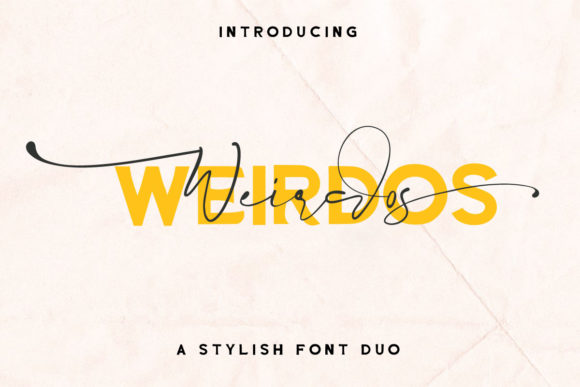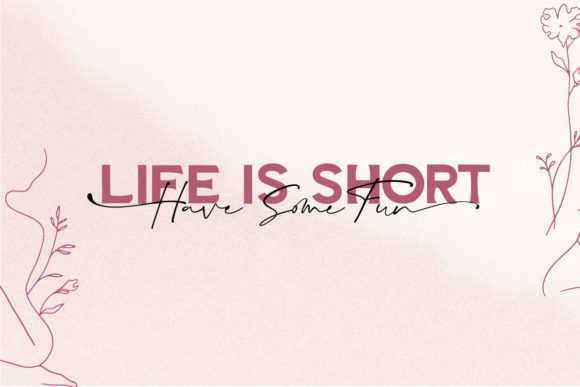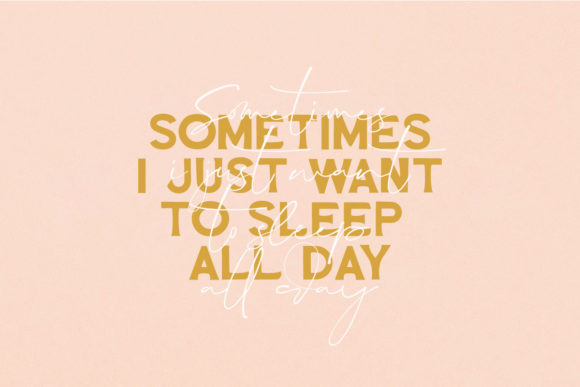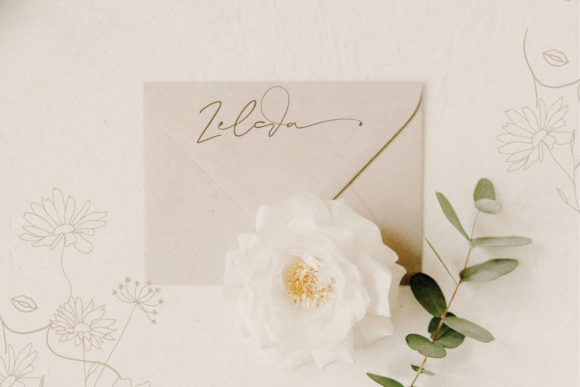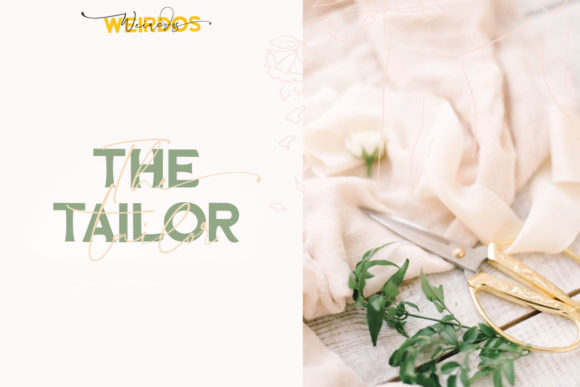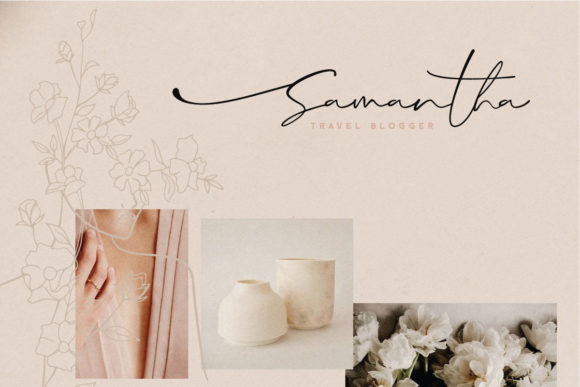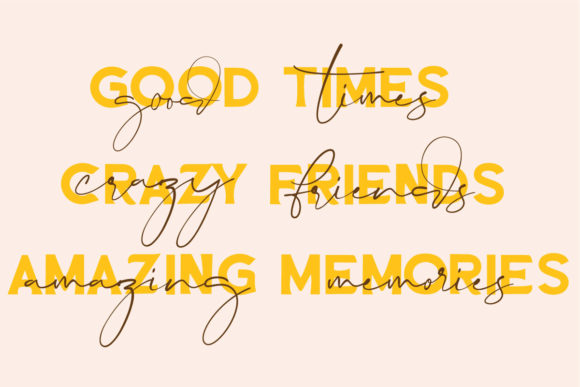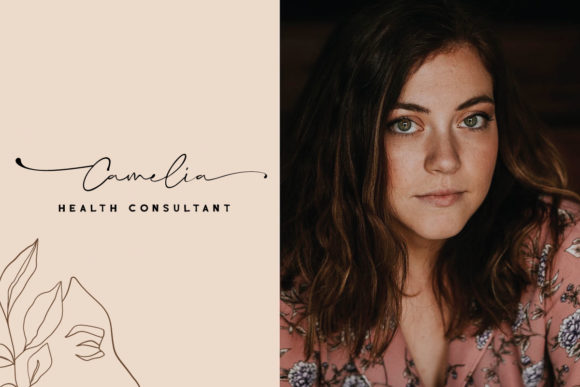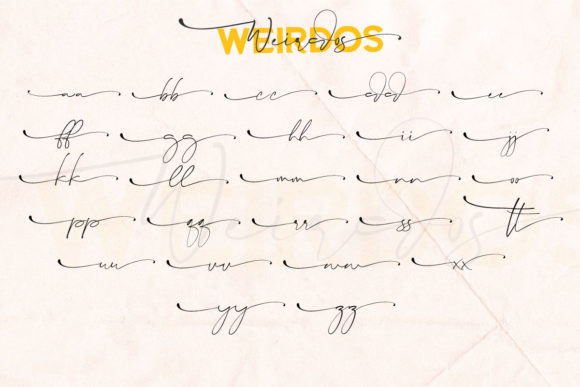
Weirdos Font
About Weirdos Font
Weirdos is a combination of two serif and script fonts. Perfect for projects like branding, logos, wedding invitations and headlines.